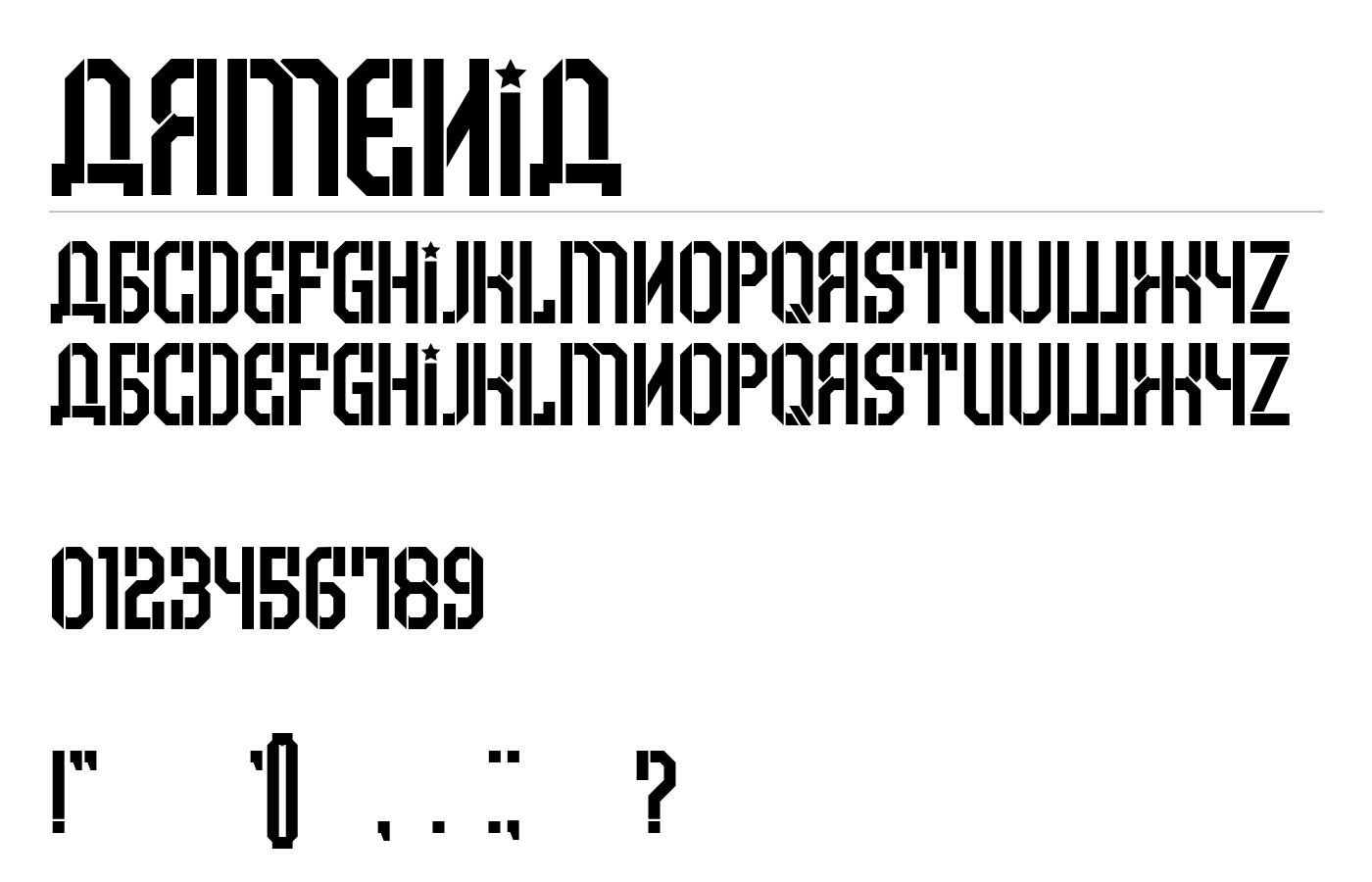
Armenia Font is a bold, condensed sans serif typeface with a strong geometric and angular design, featuring unique cut corners and a star-shaped dot on the “i” that add a distinctive, modern flair. Its rigid, block-like letterforms carry a futuristic and industrial vibe, making it ideal for attention-grabbing headlines, posters, and branding that aim to convey strength and innovation. This font works best in display settings where style and impact are key, rather than for extended body text.
Armenia Font
About Armenia Font